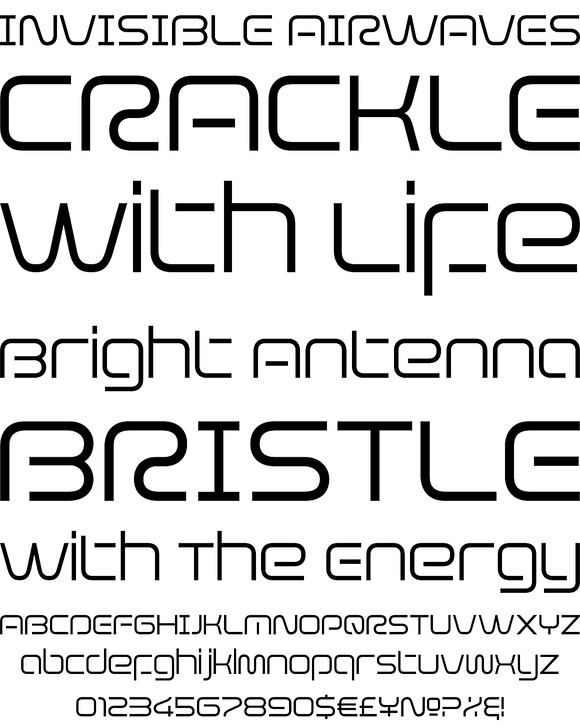
Evolver
Welcome to the end of the tunnel, where the real electricity is. Forget about sliced bread, the wheel was what got us here in the first place. And fire is what we're full of. And don't we just love it! Curvy and simple, clear and soft, Evolver is just the kind of thing you would see on the packaging of energy drinks and power bars, sports equipment and DJ gear, and electronics that carry initials for a name. And you never know, it just may become the norm for 23rd century spiritual books and headstones. Evolver comes in all popular font formats, with plenty of alternate characters scattered throughout the map. This set of fonts contains a very expanded character set that includes full support for Central, Eastern and Western European languages, as well as Baltic, Turkish, Esperanto, Greek, Cyrillic and Vietnamese.